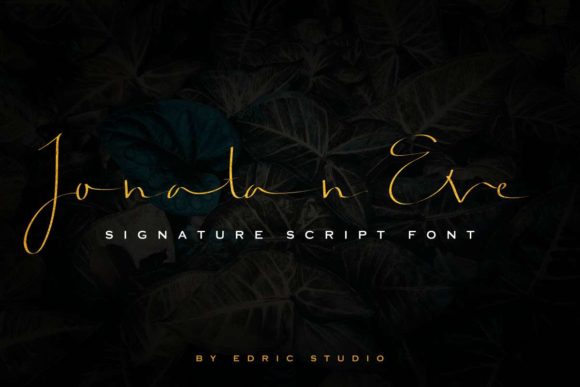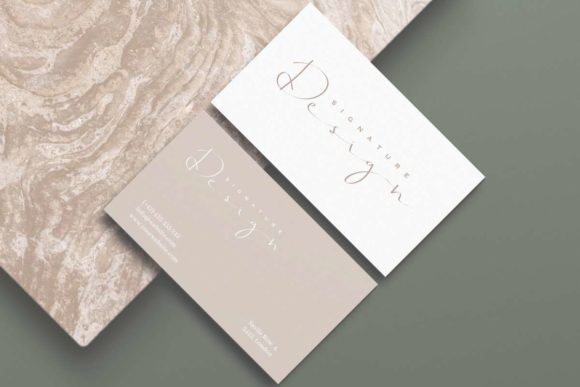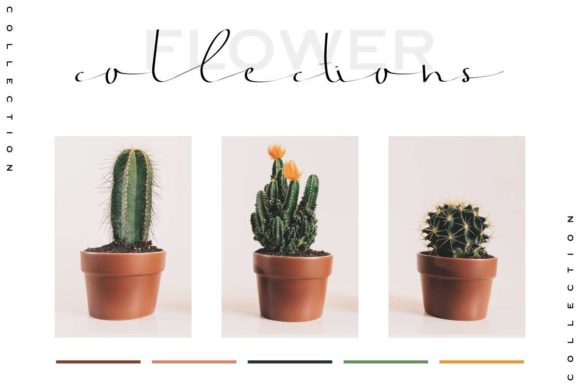
Introduction to Jonatan Eve Font
As designers, we’ve all had those moments of pure creative bliss – the spark of inspiration that sets our imagination ablaze and drives us to create something truly extraordinary. For me, it was the moment I stumbled upon the Jonatan Eve Font, a beautifully elegant script font that instantly elevated my design project from good to great.
What I love most about the Jonatan Eve Font is its versatility – it’s perfect for a wide range of creative projects, from elegant wedding invitations to high-quality branding materials. Its transparent background and free download options make it an invaluable resource for designers, allowing us to experiment and push the boundaries of our imagination without worrying about unnecessary costs or limitations.
Whether you’re a seasoned designer or just starting out, the Jonatan Eve Font is an essential addition to your design toolkit – a high-quality, free download that’s sure to turn your next project into a true standout.
Key Features of Jonatan Eve Font
- High-quality, professional font suitable for creative projects and design resources.
- Includes a range of characters, including uppercase and lowercase letters, numbers, and special characters.
- Designed with a clean and modern aesthetic, making it perfect for a variety of design projects, from logos to brochures.
Honest Review: Jonatan Eve Font
As a designer, I’m always on the lookout for high-quality design resources to elevate my creative projects. The Jonatan Eve Font is one such resource that I’ve recently had the chance to try out. ✨ One of the things that immediately stood out to me was the font’s versatility – it’s perfect for use in both digital and print-based designs, thanks to its transparent background.
- ✨ High-quality design
- ✨ Versatile and suitable for various design applications
- ⚠️ Some users may find the font’s style too minimalist
Here are a few tips to get the most out of the Jonatan Eve Font: use it for headings and titles, pair it with a solid background for maximum impact, and experiment with different font sizes and colors to create a unique look.
The Jonatan Eve Font is perfect for a wide range of creative projects, including: business cards, brochures, posters, social media graphics, and website headers.